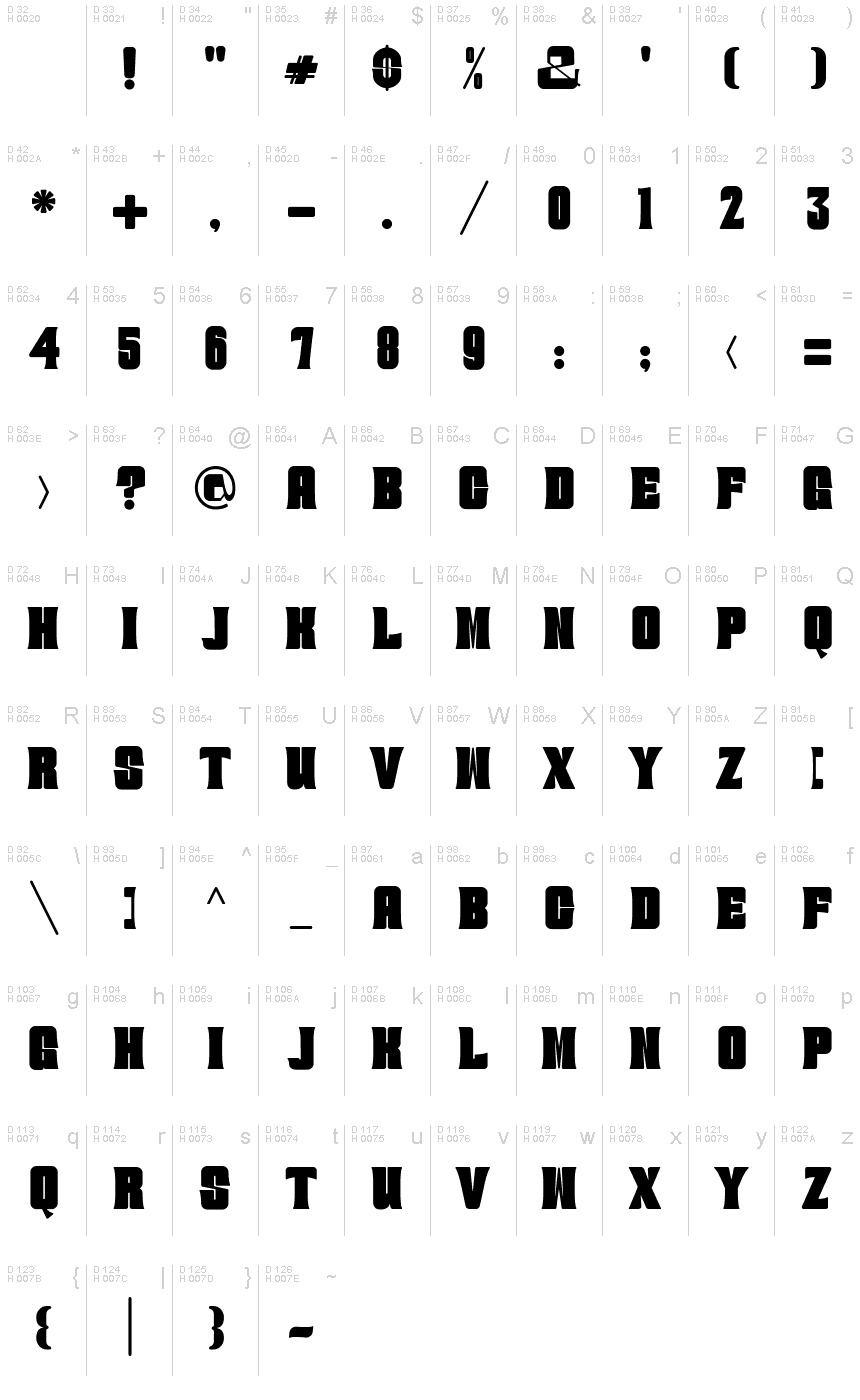
CRIMBO VINTAGE
Crimbo Vintage, designed by ToniStudio, is a bold vintage serif font inspired by the retro 80s typography. With its striking design, this extra-bold typeface is perfect for a wide range of projects.
Use it for branding designs, product packaging, titles, social media graphics, quotes, posters, book covers and more.
Elevate your design game with new shapes to add to your collection and give your projects a timeless yet modern feel.